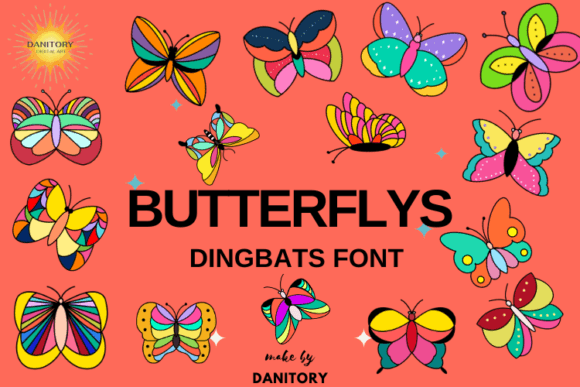
Unleash your creativity and let your imagination soar with Butterflys Font, the most enchanting dingbat font that will transform your designs into captivating masterpieces. Step into a world of whimsical beauty where butterflies dance across your creations, adding a touch of magic to every project.
With Butterflys Font, you'll have access to a diverse collection of hand-drawn butterflies, each one boasting intricate patterns and captivating details that will leave you spellbound. Let these delicate creatures flutter across your t-shirts, greeting cards, mugs, mouse pads, tote bags, and more, bringing a sense of playfulness and charm to your everyday items.
Butterflys Font isn't just a font; it's an invitation to let your creativity run wild. Embrace the freedom to express yourself through unique designs, knowing that every stroke of your pen or click of your mouse will be a stroke of artistry. Whether you're a seasoned designer or just starting your creative journey, Butterflys Font is the perfect companion to help you bring your visions to life.
So, dive into the world of Butterflys Font today and let your imagination take flight. Create designs that are as unique and beautiful as the butterflies themselves, and let your creations flutter into the hearts of those who see them.